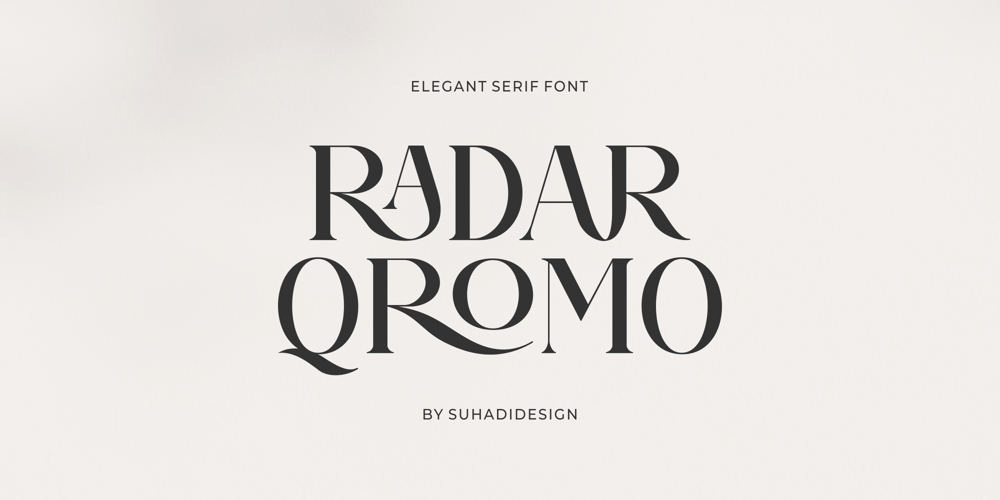
Radar Qromo
Radar Qromo font
Radar Qromo Font Family was designed by ahmad suhadi and published by suhadidesign. Radar Qromo contains 1 styles and family package options. Radar Qromo elegant serifHi ladies and gentlemen!The latest elegant font release has come, which is the font that is in the sights of these ladies and gentlemen. Namely the Radar Qromo font. The Radar Qromo font is a very pretty and handsome serif font. comes with a modern elegant style to become a market favorite. We keep this font looking elegant, classy, easy to read, stylish, attractive and easy to use. Radar Qromo Font is the right choice for brands, brand names, business cards, modern, magazines, classy designs, retro designs, newspapers, books, branding, weddings, and other projects. The Radar Qromo font is here to enhance the quality of your designs.The Radar Qromo font style will let you design a fancy and elegant name for this font. Keep following us for updates on making further fonts :)Feature:• All Uppercase letters• Multilingual Support• Numerical• Punctuation• Ligature collections